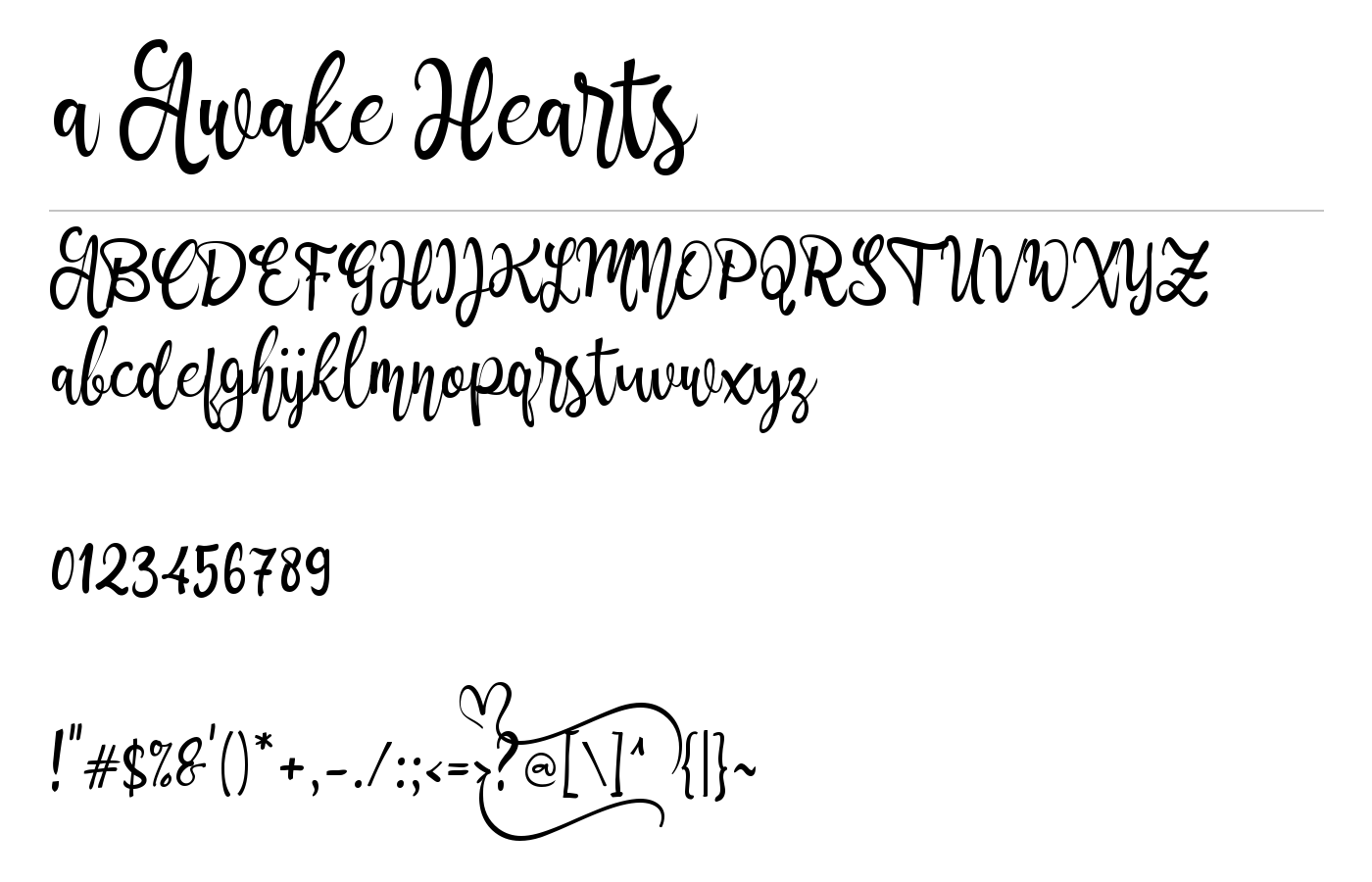
Awake Hearts is a charming script font with smooth, flowing lines and playful swashes that give it a warm, handwritten feel. Its balanced weight and elegant curves make it perfect for adding a personal, inviting touch to invitations, branding, and creative projects that seek a friendly yet stylish appearance. This font works beautifully in headlines and decorative text where a touch of personality and charm is desired.
a Awake Hearts Font
About a Awake Hearts Font